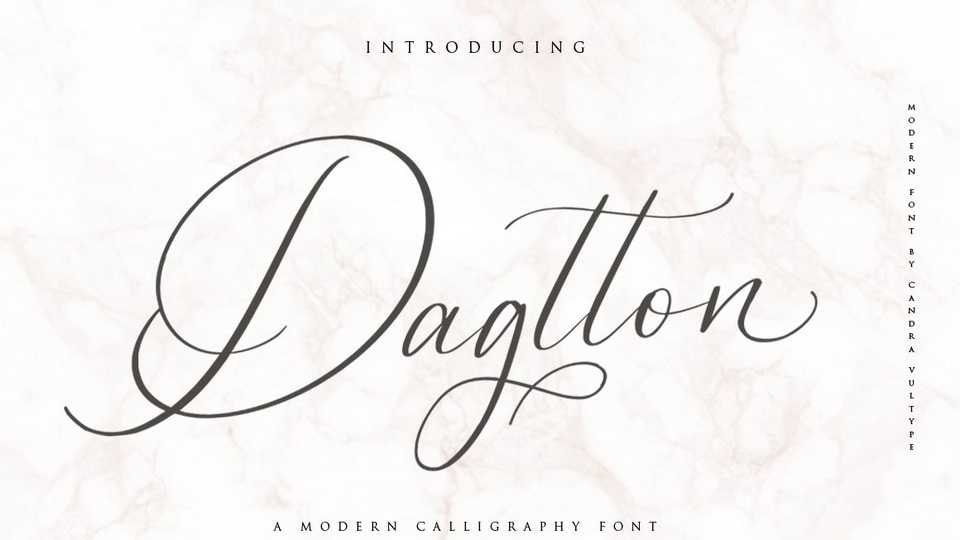
Dagtton Script Font › Fontesk
Download Dagtton font, an elegant and delicate handwritten typeface. Dagtton looks stunning on wedding invitations, thank you cards, quotes, greeting cards, logos, business cards and every other design which needs a handwritten touch.
Designer: Vultype Co